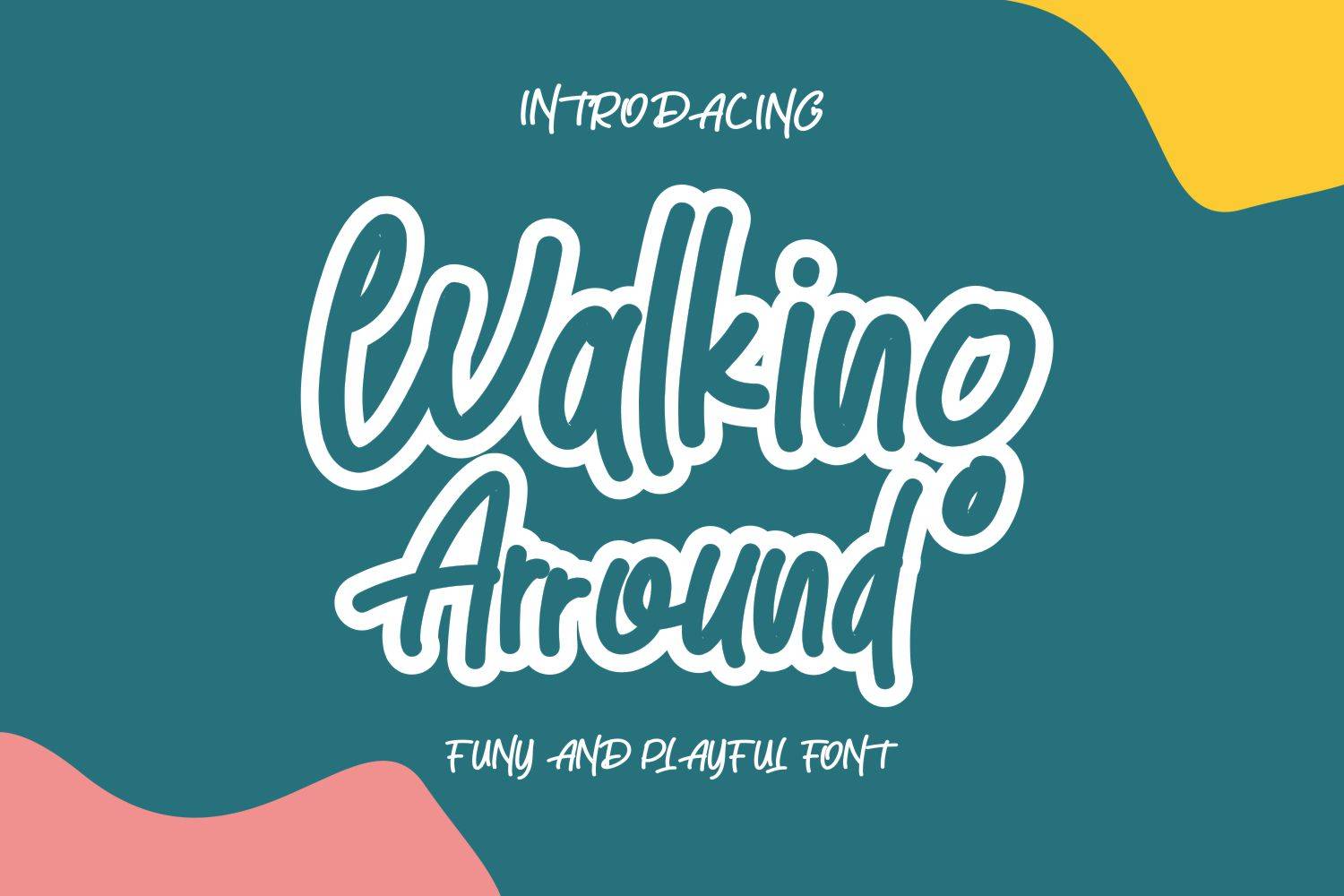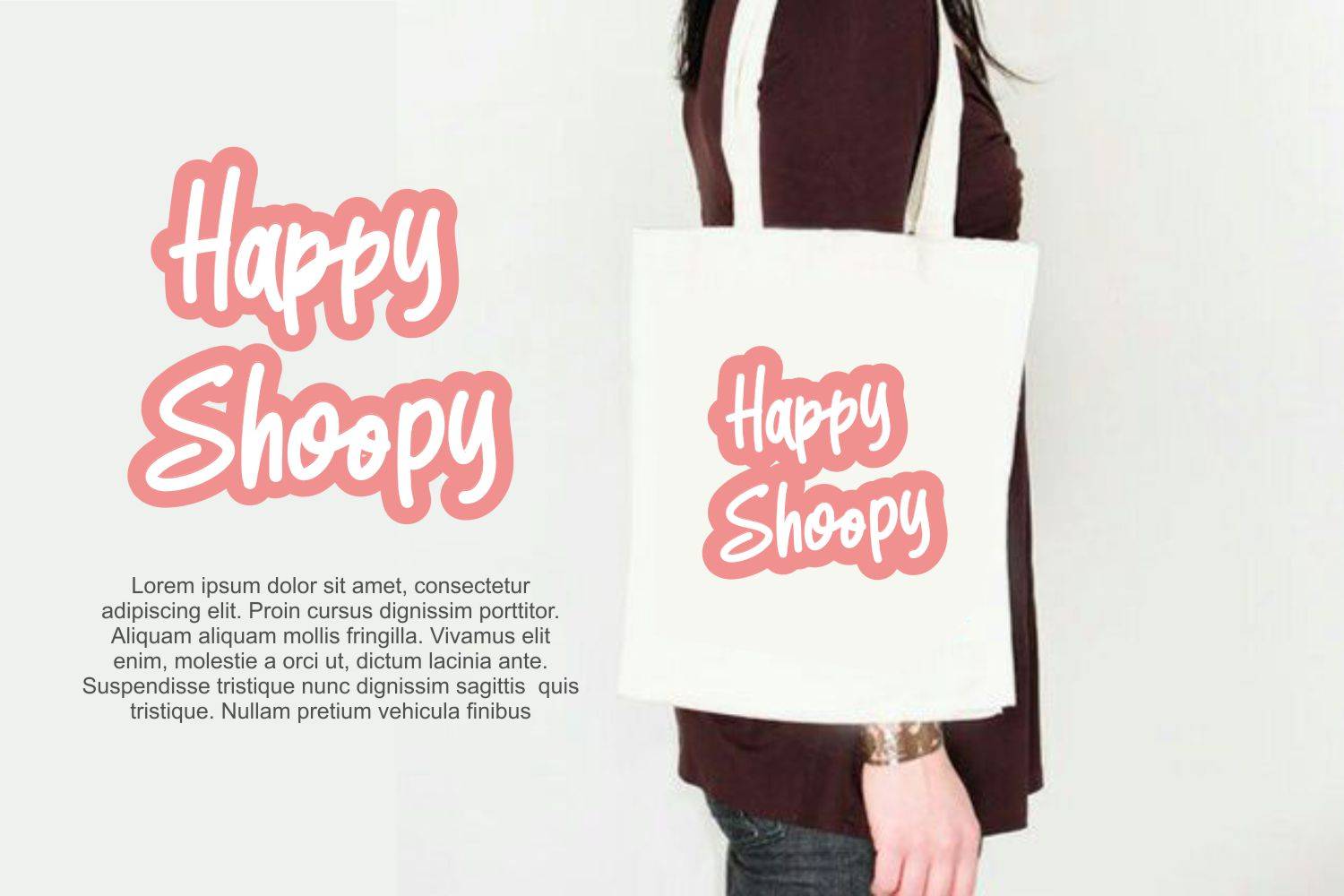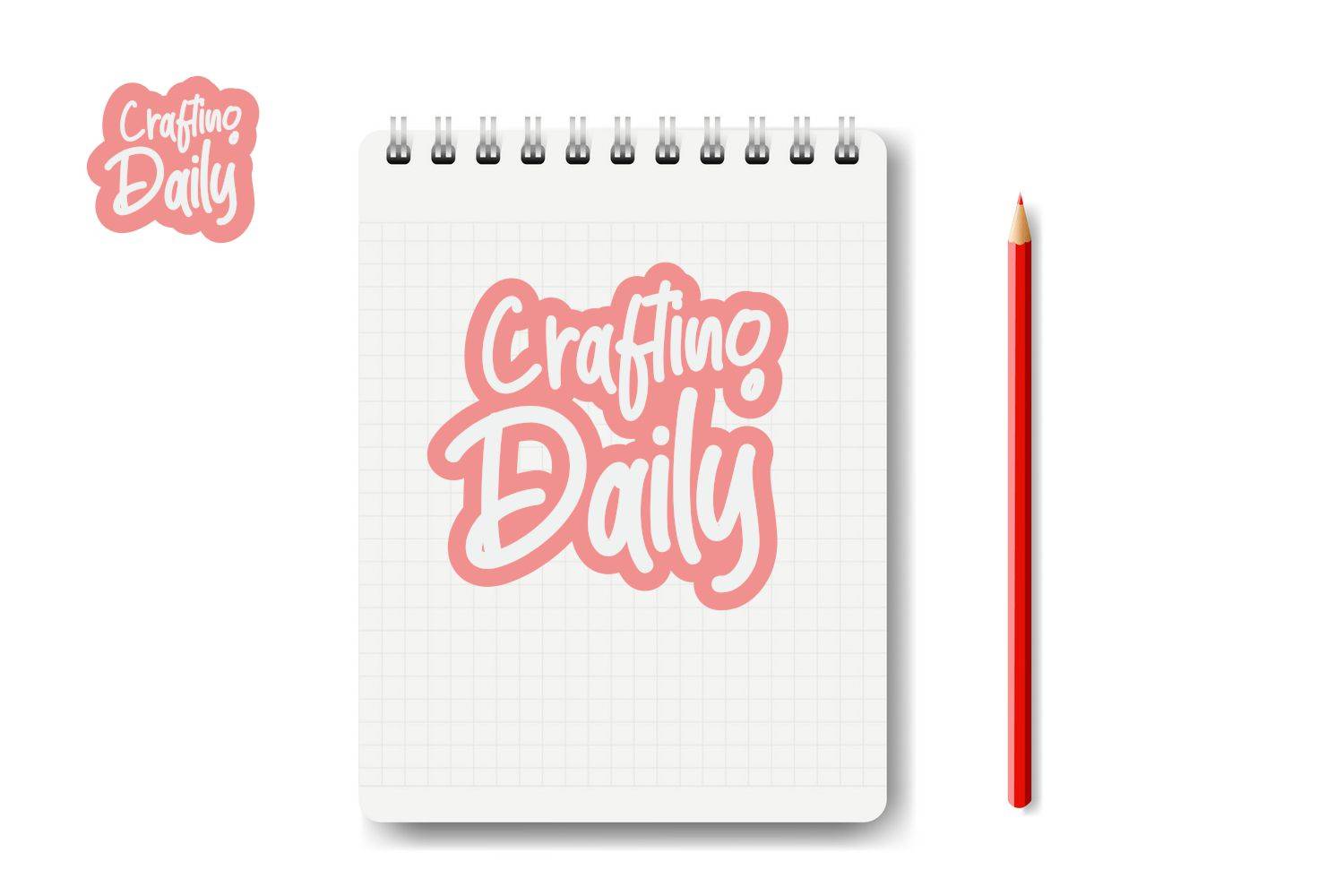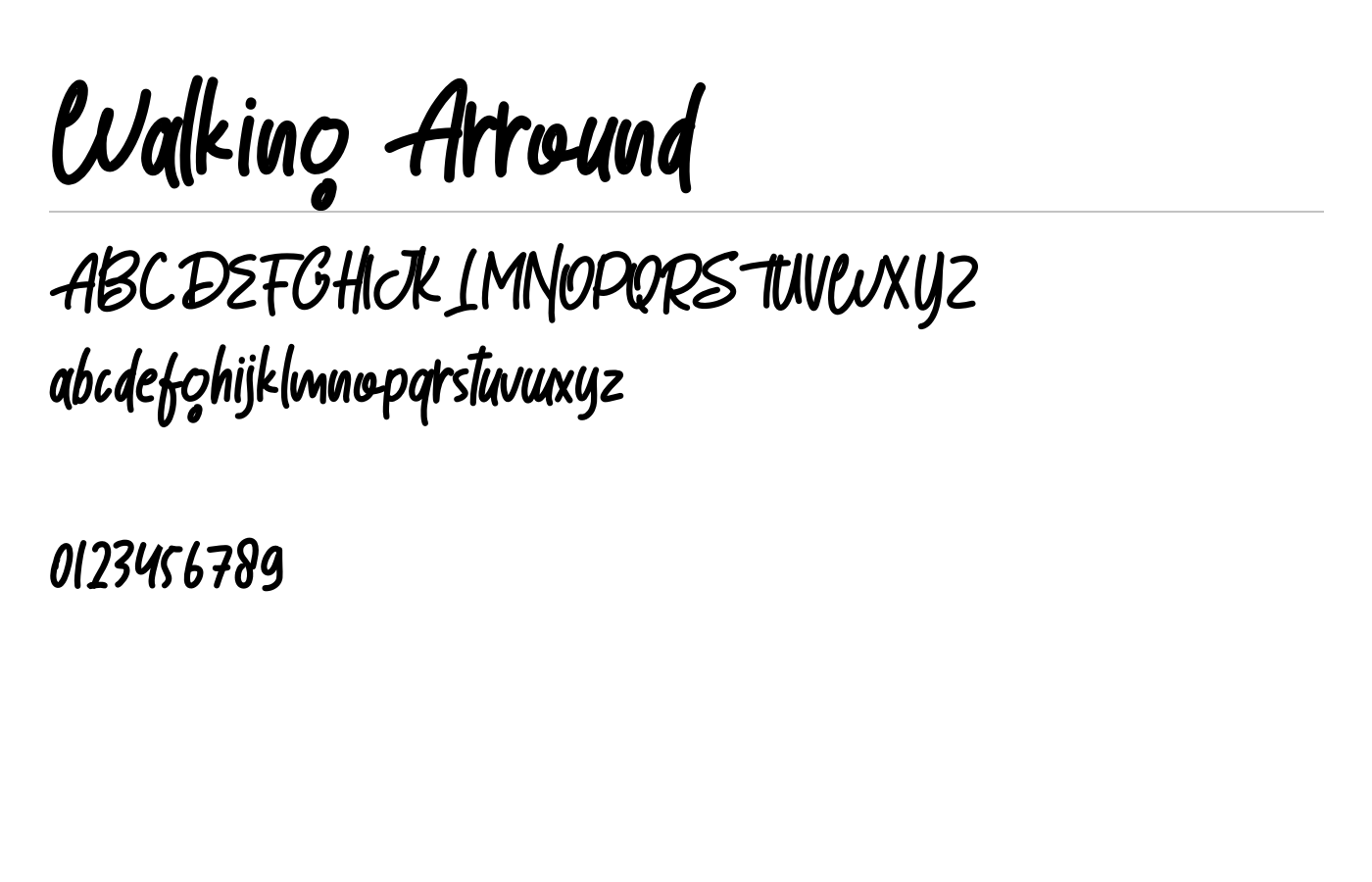
Walking Arround is a lively, handwritten script font with a casual, playful feel. Its medium weight and upright strokes, combined with a loose, organic flow, make it perfect for adding a friendly, approachable touch to creative projects like invitations, branding, and social media graphics. This font works well where a personal, informal vibe is desired, blending warmth and spontaneity with easy readability.
Walking Arround Font
About Walking Arround Font
| Font family | Walking Arround Font |
| Designer | SharkStudio |